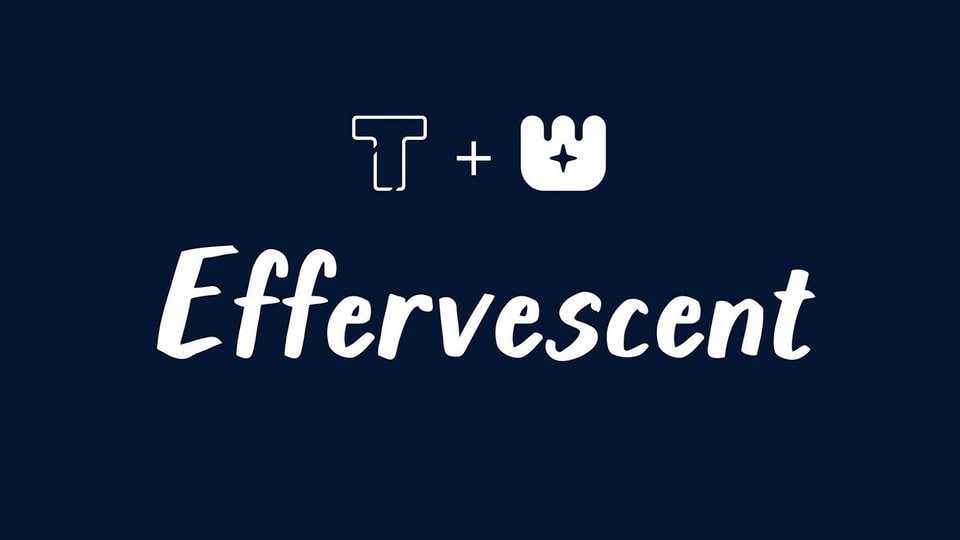
Download LT Effervescent font, a typeface that harks back to the lettering styles of the 1950s, suitable for a variety of projects, including comic books and invitation cards.